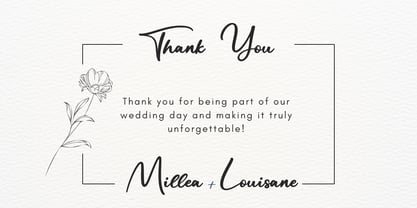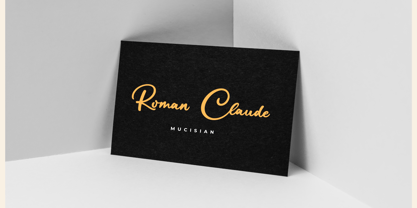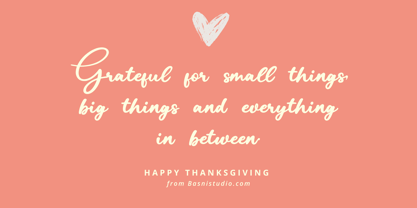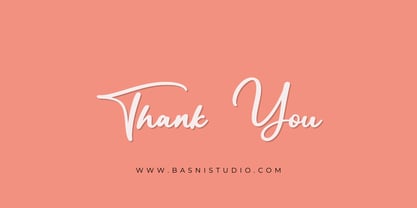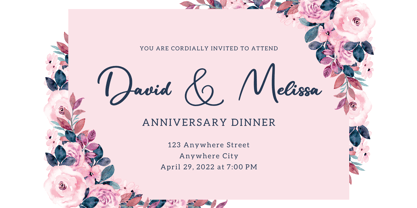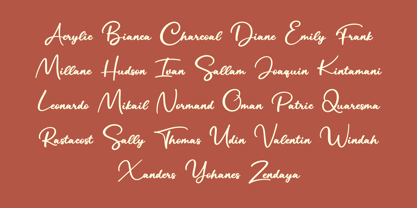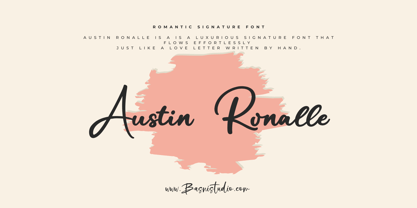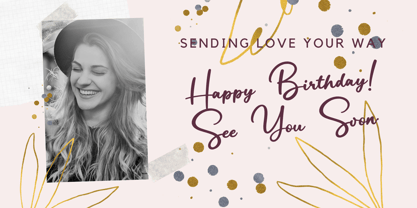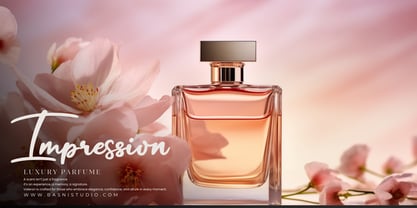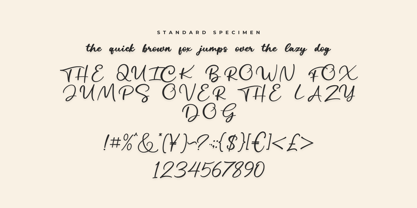
Austin Ronalle
The Austin Ronalle Font Family was designed by Bery Arisandi and published by Basnistudio. Austin Ronalle contains 1 styles.
Introducing Austin Ronalle – Where Elegance Meets Love!
Looking for the perfect handwritten script to add a touch of romance and sophistication to your designs? Austin Ronalle is a luxurious signature font that flows effortlessly, just like a love letter written by hand.
Authentic Handwritten Feel – Inspired by real pen strokes for a natural elegance.
Romantic & Timeless – Perfect for wedding invitations, branding, and heartfelt messages.
Smooth & Stylish – Designed for effortless beauty in every curve.
Bonus Ligatures & Swashes – Extra Swashes for a personalized touch.
Whether you’re crafting wedding stationery, branding a luxury product, or creating dreamy social media posts, Austin Ronalle adds a touch of love and sophistication to every project.
• Uppercase & lowercase letters
• Ligatures
• Swashes
• Numbers & punctuation
• Multilingual Support ( Support for 30 languages )